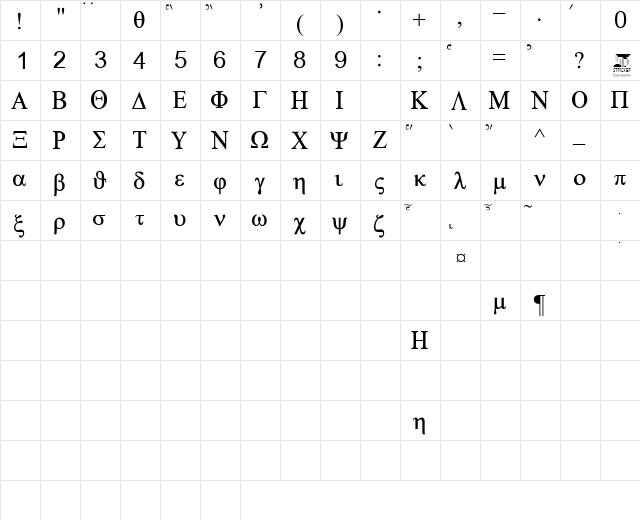
Griechisch (HEBGRI) Regular
Design Context for Griechisch (HEBGRI) Typeface
Griechisch (HEBGRI) offers clean, dependable letterforms without strong stylistic allegiance, making it a practical choice for designers who need flexibility.